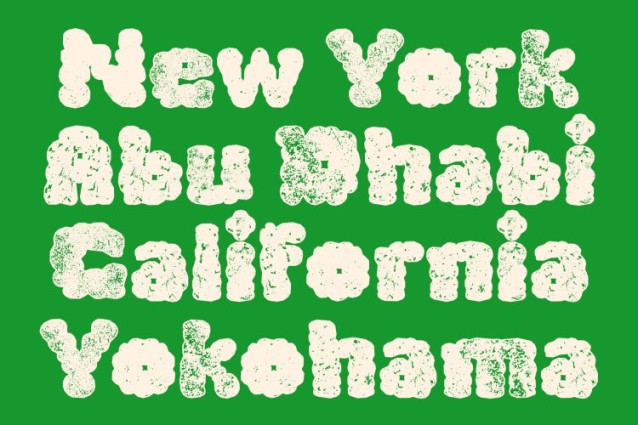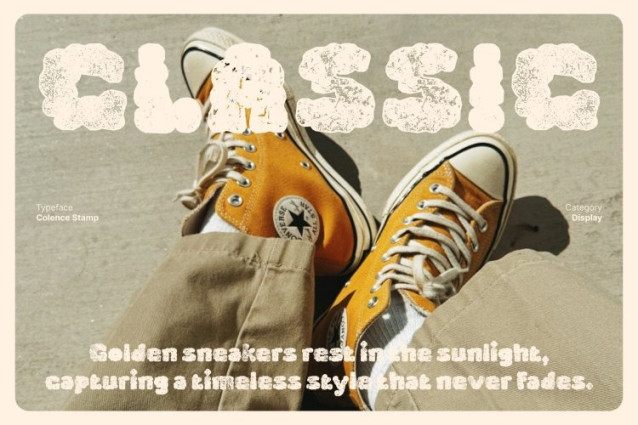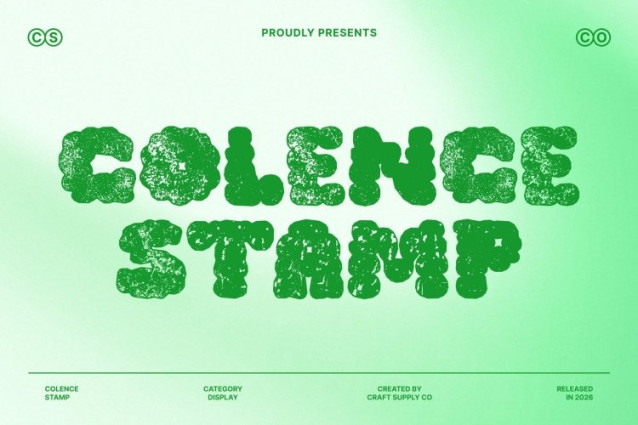
Colence Stamp Font
Colence Stamp Font This captures the lighthearted beauty of fluffy clouds and enhances it with a subtle stamped texture. Its rounded, airy letterforms maintain their soft and whimsical appeal, while gentle ink variations and slightly distressed edges introduce a handcrafted, print-inspired warmth. The result is a font that feels dreamy, cheerful, and full of personality.
Engaging Display Typeface with Tactile Depth
Designed as a display typeface, naturally draws attention. The cloud-like shapes feel soft and inviting, while the stamped finish adds depth and visual interest. This combination creates typography that is playful yet grounded, imaginative yet expressive perfect for designs that aim to spark curiosity and joy.
Perfect for Fun and Eye-Catching Designs
From posters and banners to packaging, children’s content, and social media graphics, this font adds a delightful and memorable presence. Its textured finish enhances the organic shapes, giving your visuals a charming, slightly vintage touch that stands out in both print and digital formats.
Where Creativity Floats Freely
This font blends whimsical cloud-inspired forms with a tactile stamped effect, bringing imagination and warmth into typography. Versatile yet distinctive, it allows your designs to feel joyful, expressive, and visually captivating inviting viewers to step into a world where creativity truly floats among the clouds.